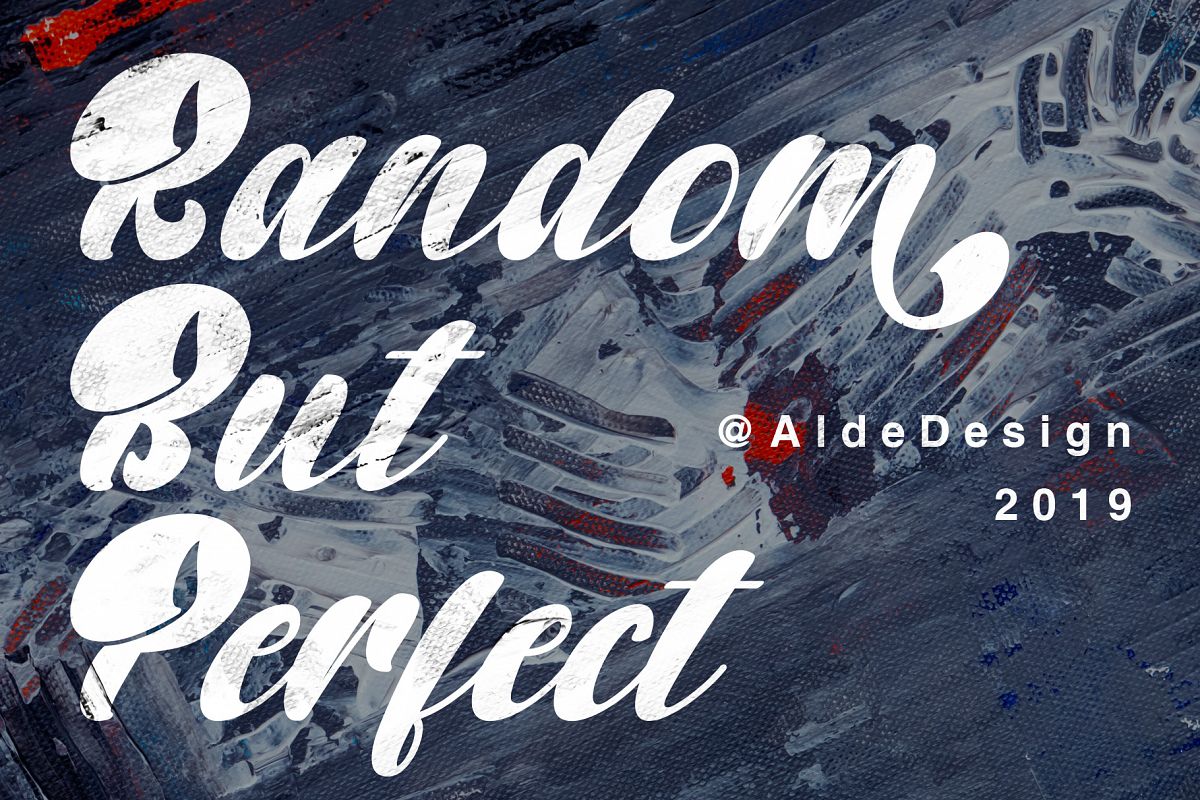
Random But Perfect
Random But Perfect is Nice Bold Script Font - A stylish and quirky new bold script.
Random But Perfect font was created to look as close to a readable bold script as possible by including over a lot ligatures, titling, and swash.
This font is for those who want to show something strong and modern. You may use this font if you want to attract modern buyers.
The font design seems to show that you have a passion in the business and give your love to the products and services you are offered to customers.Because it is an eye-catching bold script font, you can use it for a variety of purposes including design, branding, signature, logo, poster, and many more.We have more great and artistic fonts.